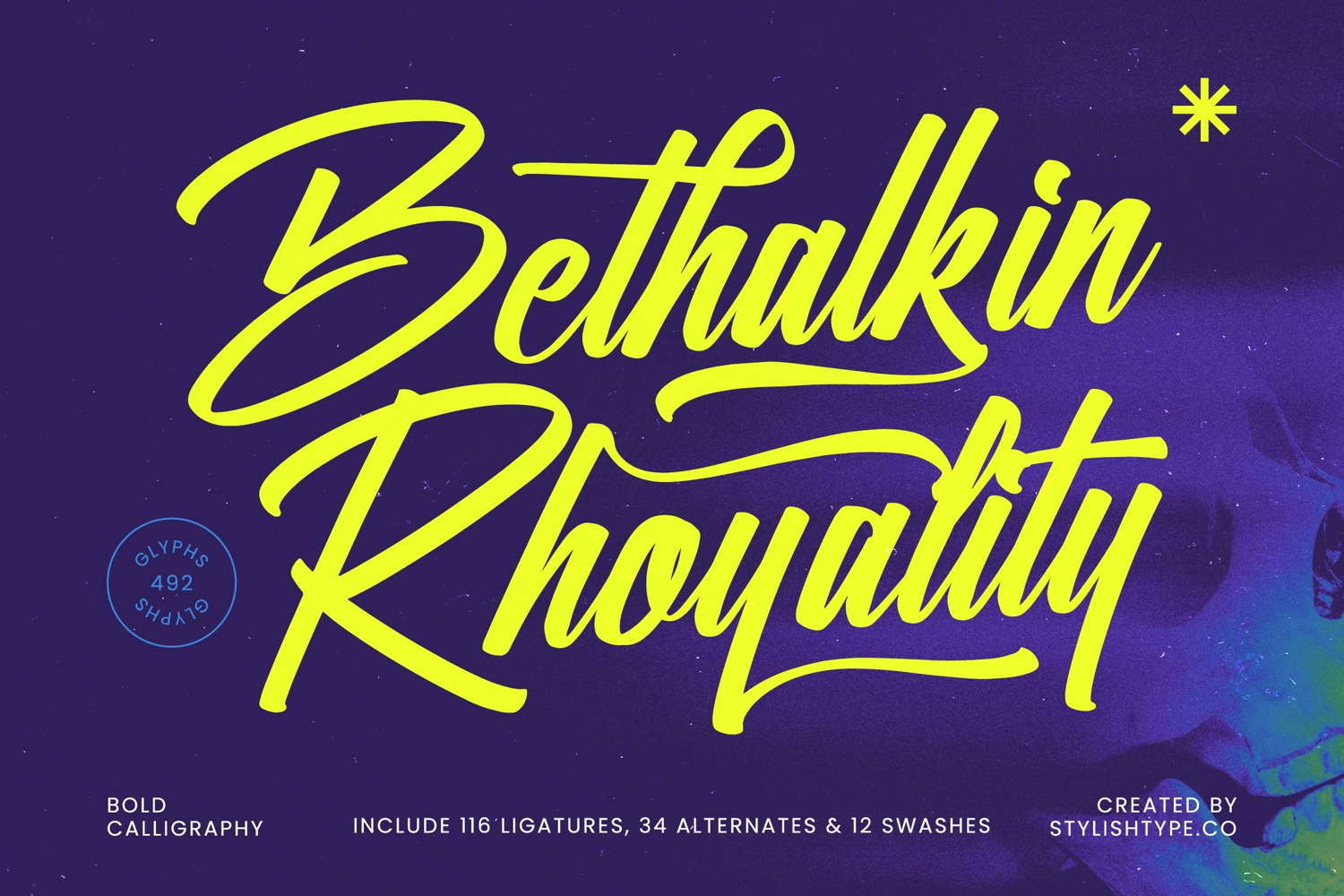
Bethalkin Rhoyality - Bold Calligraphy Font
Inject immediate energy into your designs with Bethalkin Rhoyality - Bold Calligraphy Font. This display script is defined by its high-contrast, dynamic strokes and unapologetically bold presence. Designed to command attention, the typeface captures the spontaneity of real brushwork while maintaining the clarity and weight necessary for high-impact branding. It is the ultimate choice for projects demanding both elegance and visual punch.